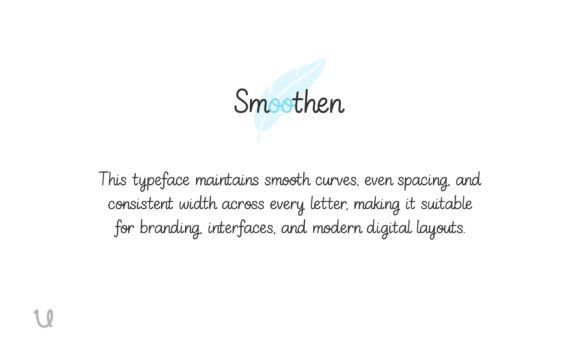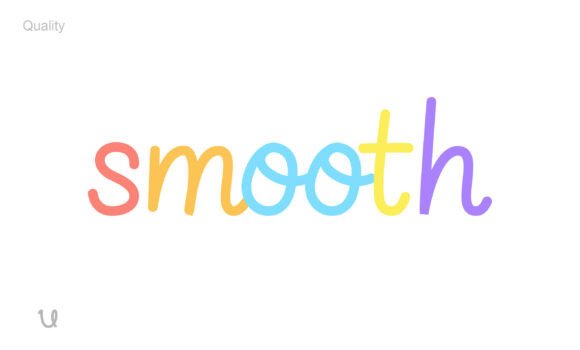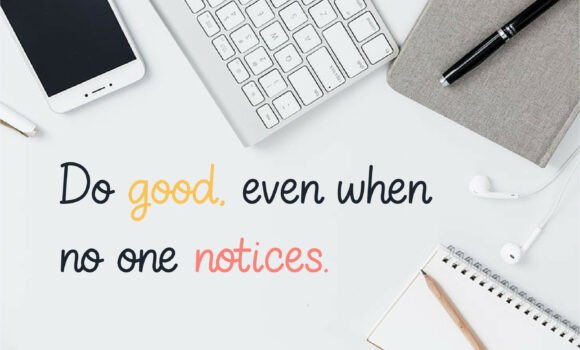
Introduction to Smoothen Font
As a designer, you know that sometimes it takes just the right font to elevate your creative project from good to great. Remember that one moment when you spent hours tweaking the perfect layout, only to realize the font just wasn’t doing it for you? That’s where the Smoothen Font comes in – a game-changing design resource that’s sure to give your work a high-quality, modern touch.
With its soft curves and balanced shapes, the Smoothen Font is perfect for logos, product packaging, social media designs, and more. And the best part? It’s a free download, available with a transparent background, making it easy to integrate into your design. Whether you’re a seasoned pro or just starting out, the Smoothen Font is an invaluable addition to any designer’s toolkit.
Key Features of Smoothen Font
- High-quality design for creative projects, suitable for various applications such as logos, posters, and brochures.
- Smoothen Font is designed with a unique blend of modern and elegant styles, making it perfect for both digital and print designs.
- The font includes 200 glyphs, covering a wide range of languages, including Latin, Cyrillic, and Greek alphabets.
- Each glyph is carefully crafted to ensure high resolution, suitable for printing at 300 DPI or higher.
- Smoothen Font is ideal for designers seeking a high-quality, versatile font for their creative projects.
Honest Review: Smoothen Font
I recently stumbled upon the Smoothen Font, and I must say it’s a great addition to any design project. ✨ Its clean and modern aesthetic makes it perfect for a variety of creative projects, from business cards to digital presentations.
- High-quality font with a clean and modern aesthetic
- Perfect for a variety of creative projects
- May not be suitable for projects that require a bold, statement-making font
- Some users may find the font too minimalist
- Not a lot of customization options
Overall, I’m quite impressed with the Smoothen Font. It’s a great design resource that can add a touch of professionalism to any creative project. While it may have some limitations, I think it’s definitely worth checking out.
Smoothen Font is a versatile design resource that can be used in a variety of creative projects, including logos, business cards, and social media graphics. Its high-quality design and transparent background feature make it a great choice for designers and non-designers alike.